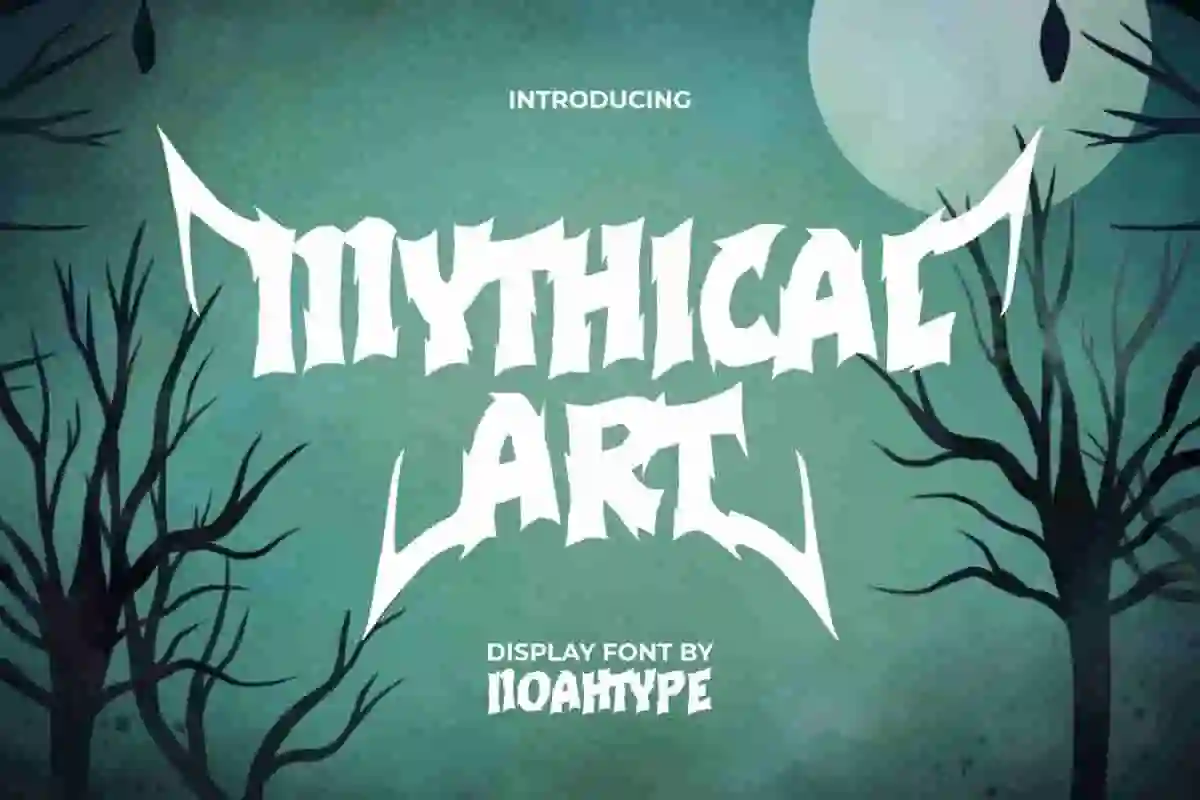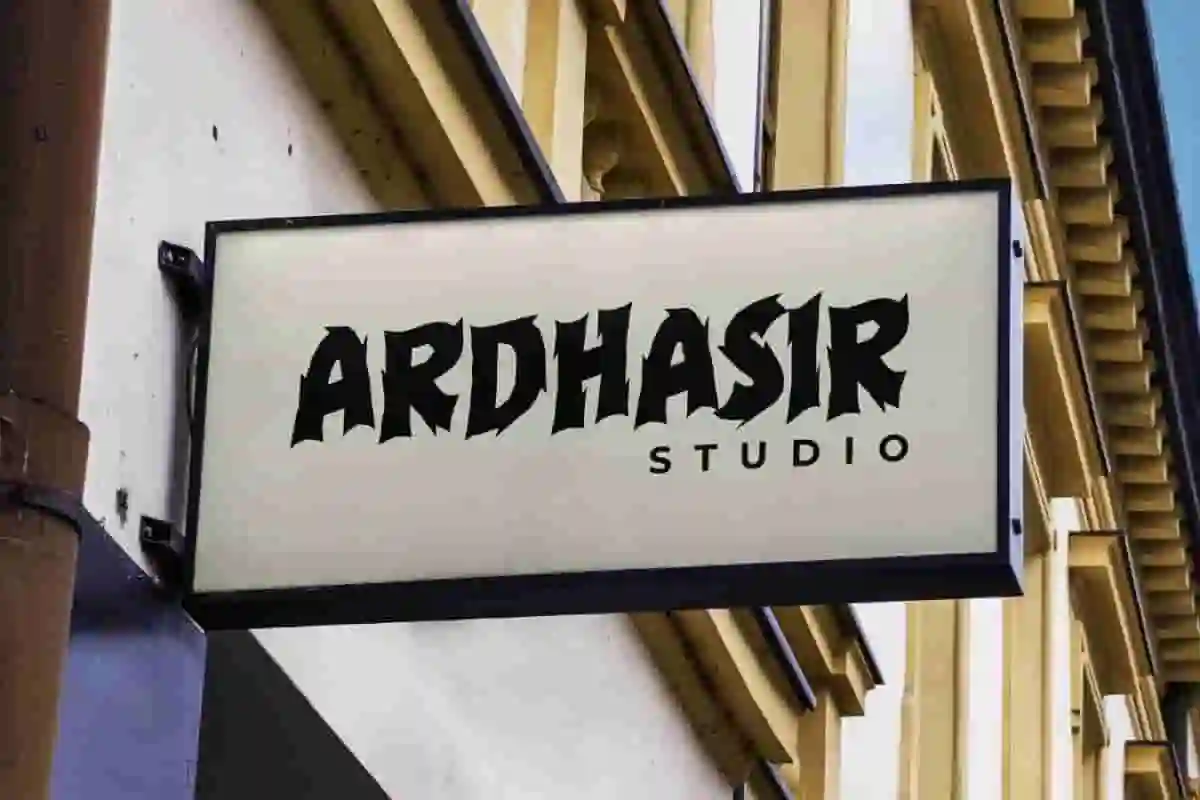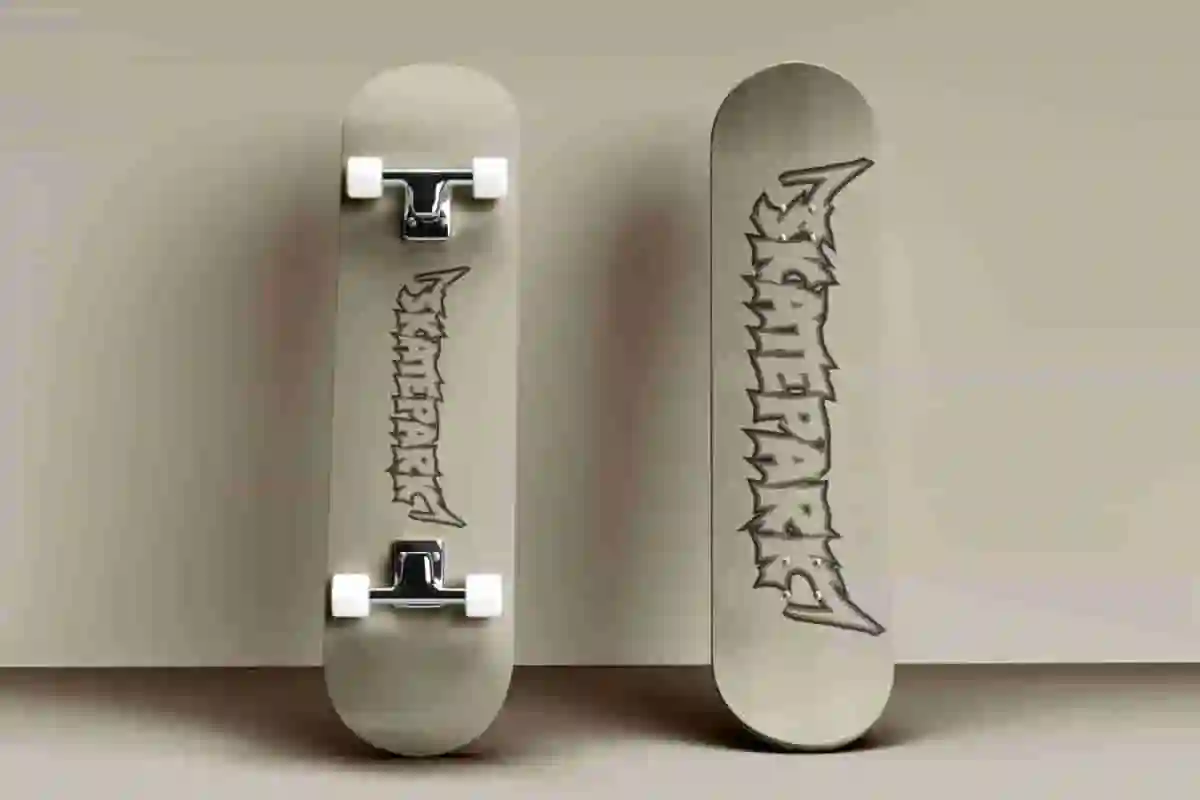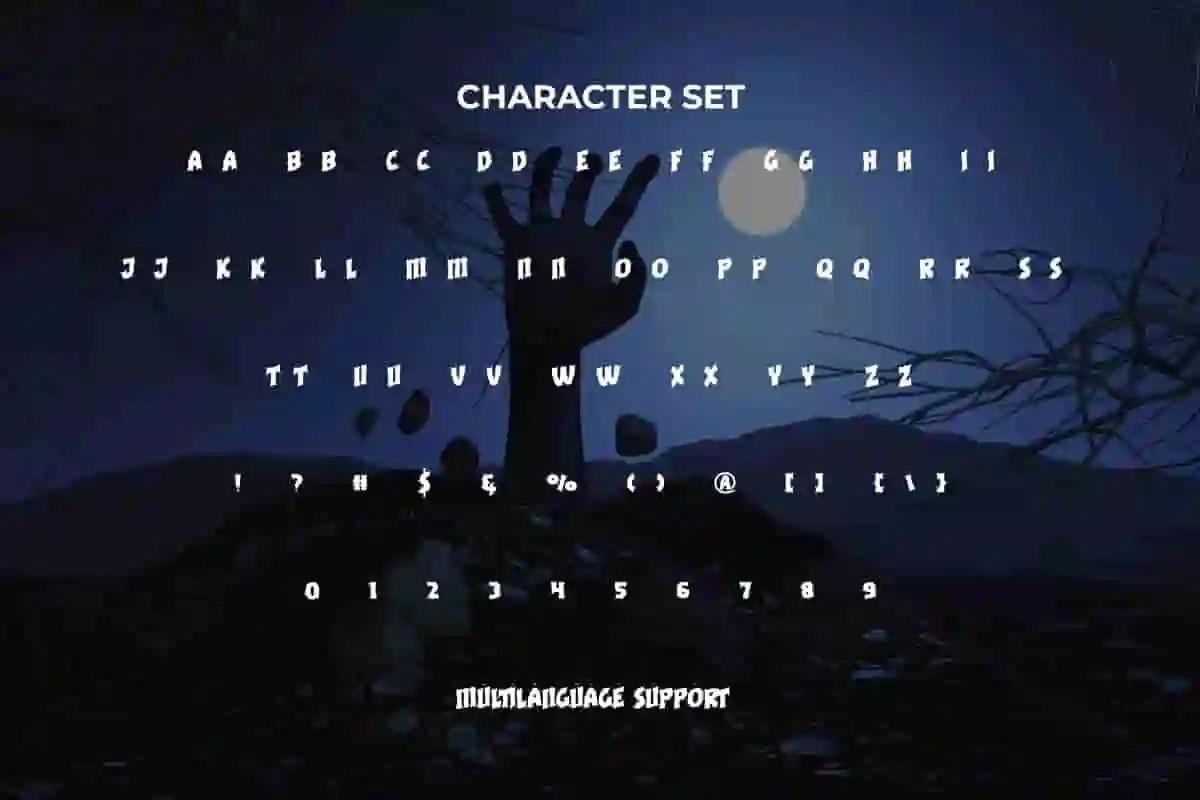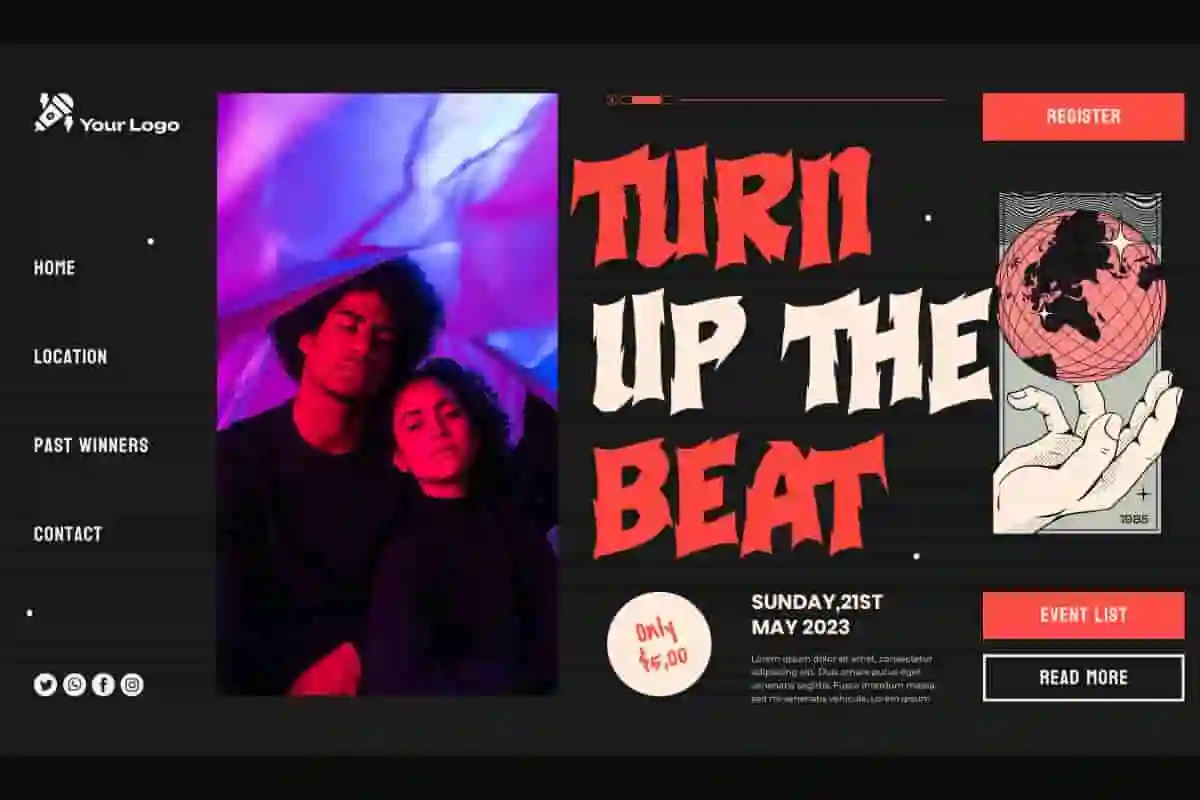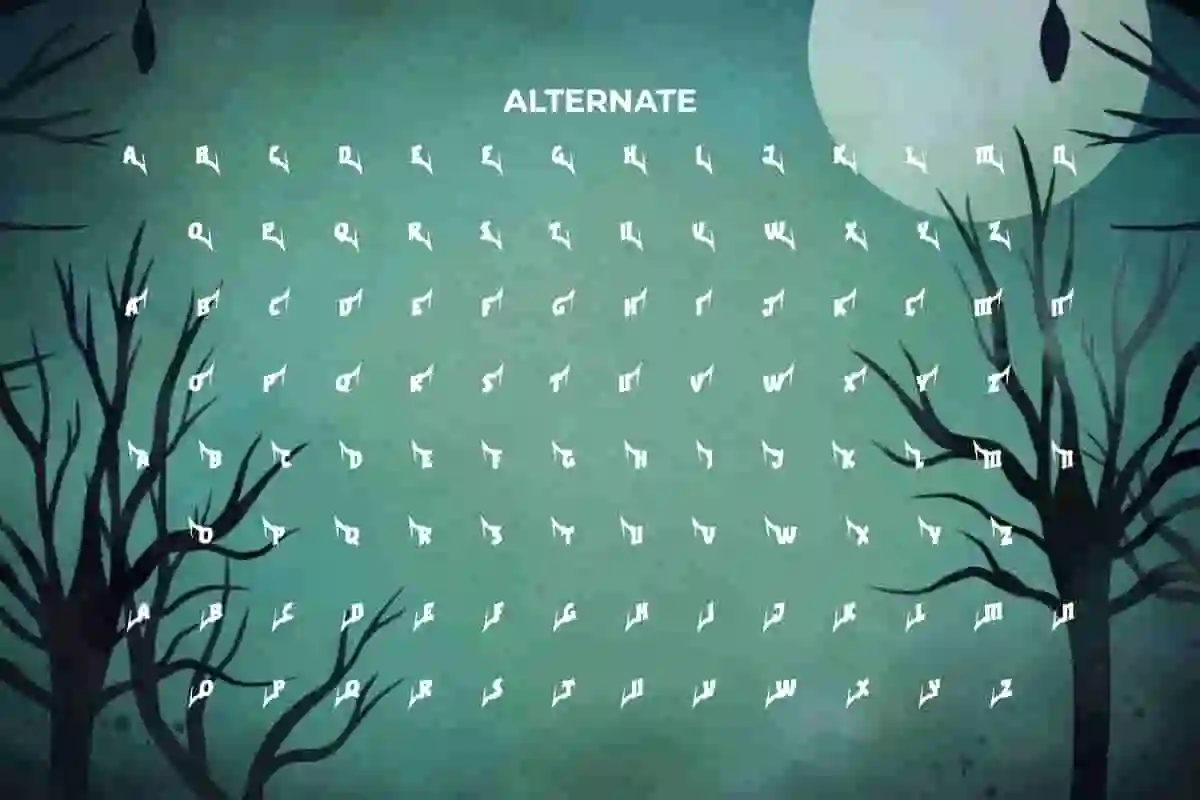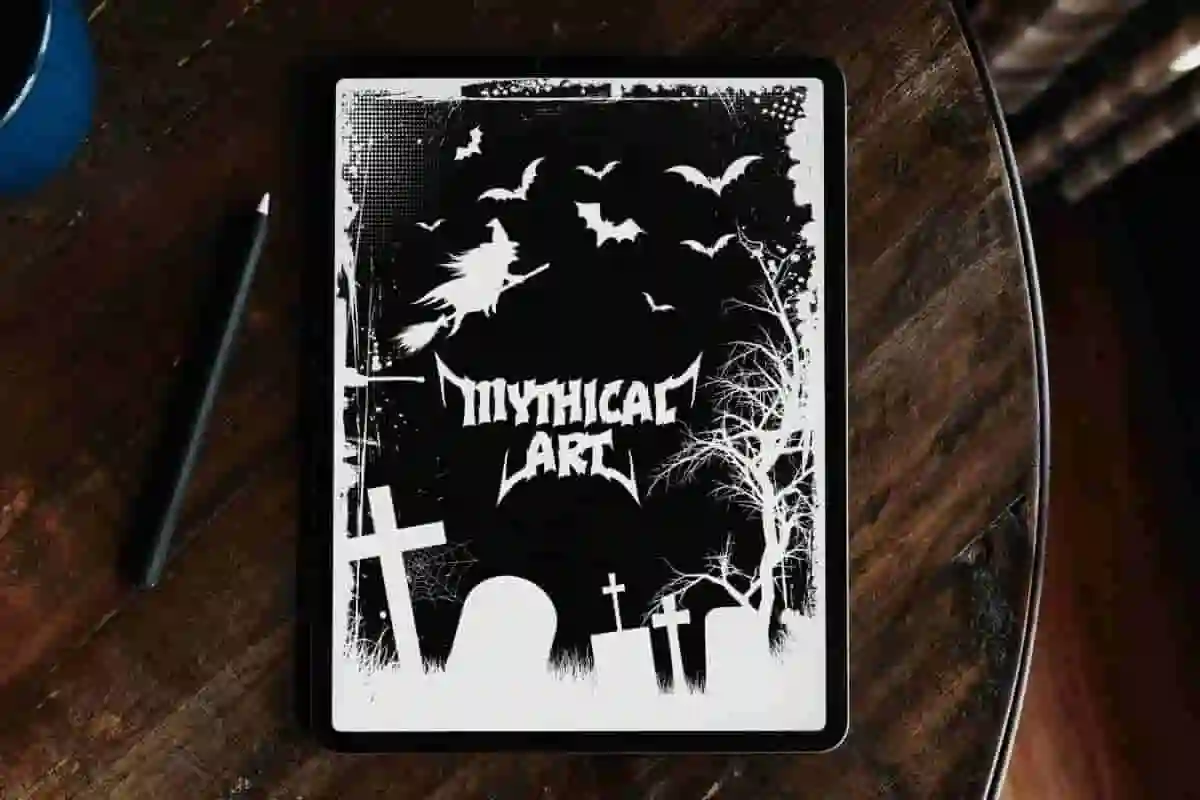
Mythical Art Font is a crazy black metal display font with harsh scary look. This font can be used for metal music concepts or scary designs to make it look awesome. It will be perfect for any designs, such as brand image, custom design, invitation, label, marketing material, menu, poster, product packaging, quotes, signage, website, and many more!
Mythical Art Font includes full set of ALL CAPS for Uppercase and Lowercase Basic Characters, Numerals, Punctuation, and Symbol. This font also have Alternate character that will make your design amazing and also a perfect choice for many industries, such as accessories, advertising, art, café, event or festival, fashion, game, movie, music, printing, publishing, etc.